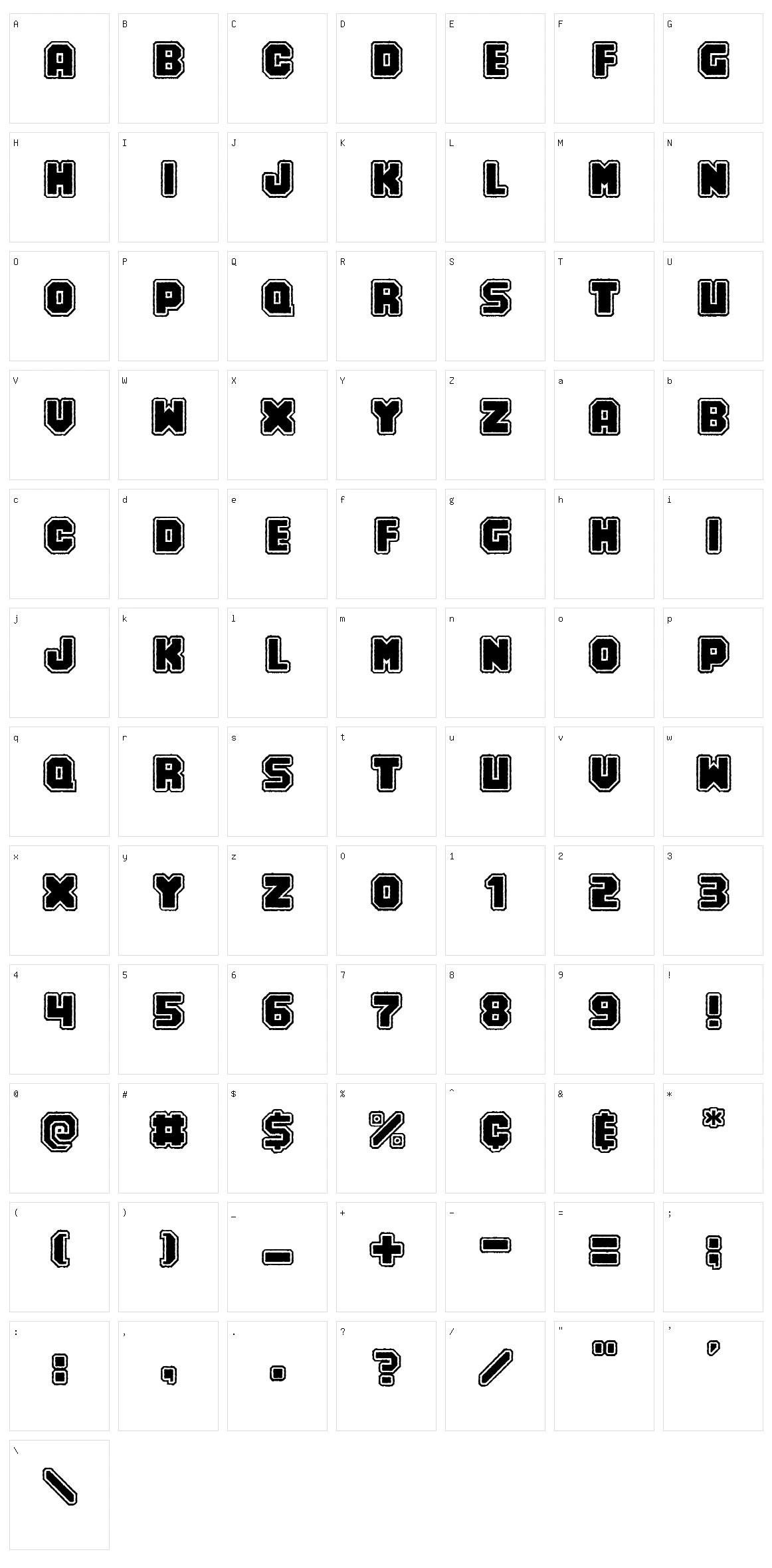
The free font Numero 10 Clean is carefully designed by imagex, showcasing a thoughtful balance of creativity and usability and falls under the Old School font style. When you download the ZIP file, it contains only 103.37 KB of font files, making it lightweight and quick to download. Please review the license details below to understand permitted usage and distribution rights. If license information is not available, we recommend using this font for personal projects only or contacting the author directly for commercial usage permissions.